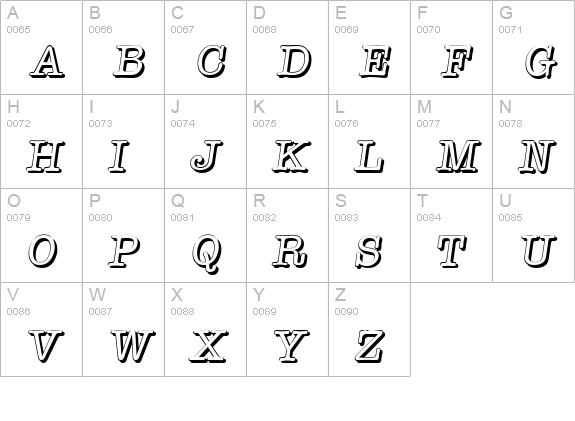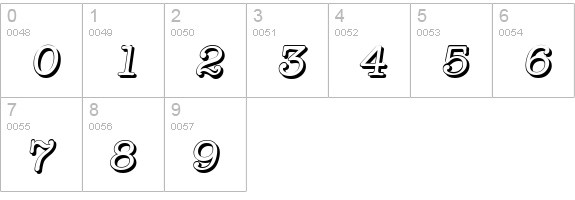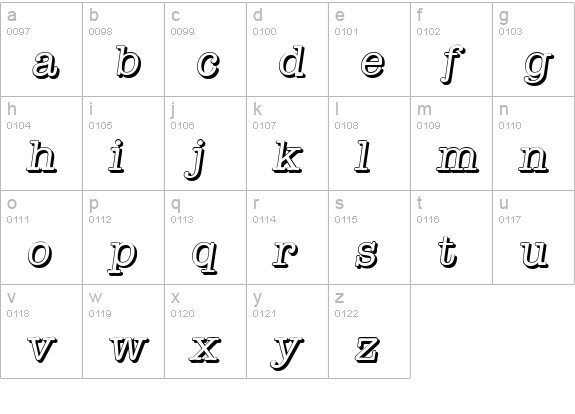
TypewriterShadow-Italic is a distinctive, italic variant in the TypewriterShadow typeface family \xE2\x80\x94 well suited to design and typography projects.
Introducing TypewriterShadow-Italic, a unique and stylish font that combines the classic look of a typewriter with a modern twist. This italic version of the font adds a touch of elegance and sophistication to your designs. The shadow effect gives it a three-dimensional appearance, making it stand out on any project. The best part? TypewriterShadow-Italic is available for free download at FontsMarket.com. Whether you're working on a retro-inspired poster, a vintage-themed website, or a creative branding project, this font is sure to make a statement. Don't miss out on the opportunity to add TypewriterShadow-Italic to your font collection today!